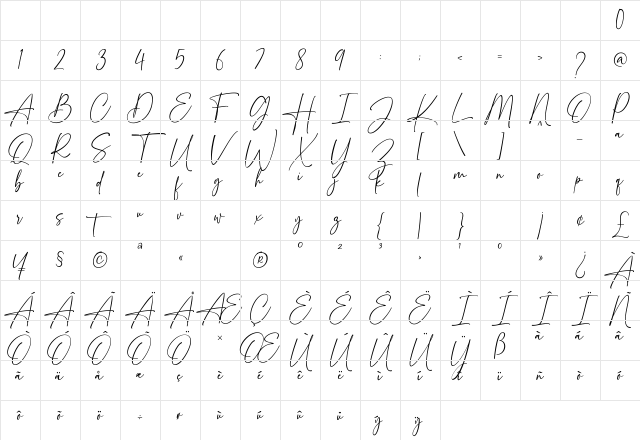
Serathine Demo Regular Free Font
Serathine Demo Regular
Designer: Muhammad Mujibulloh - MJB Letters
Design Context for Serathine Demo
Serathine Demo is a composed and adaptable typeface that performs quietly and consistently across a wide range of design contexts. Its slender proportions lend an understated elegance to any composition.